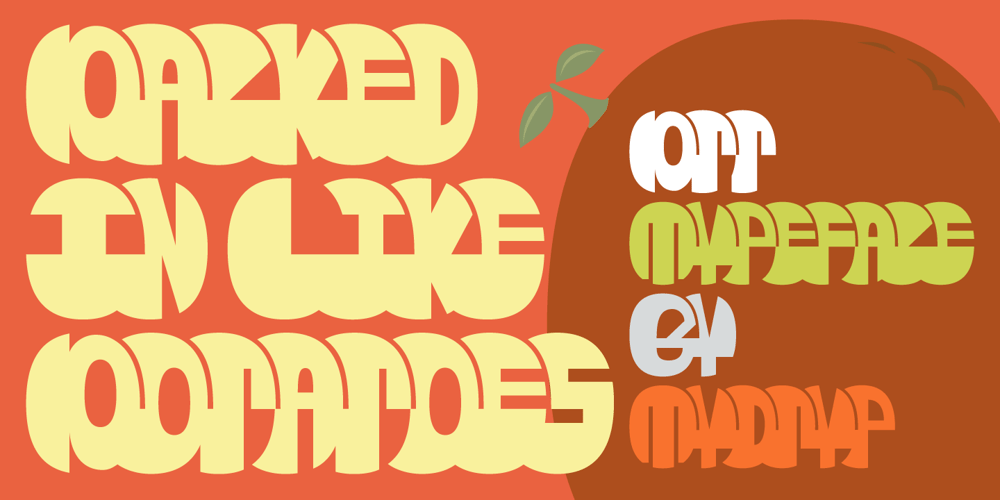
PTT Font Family was designed by Shuhei Toyoda and published by TYDTYP. PTT contains 1 styles and family package options. PTT typeface has very rounded outlines. They are extremely overlapping each other like packed potatoes. The face will be very strong and give your design extraordinary spice! Basically, main characters are consist of two different shapes, one is initial form which is only used at the beginning of a word, the other is medial form which is used for the rest. To use this function, I highly recommend to use appropriate layout application (e.g. Adobe illustrator, InDesign, QuarkXpress).